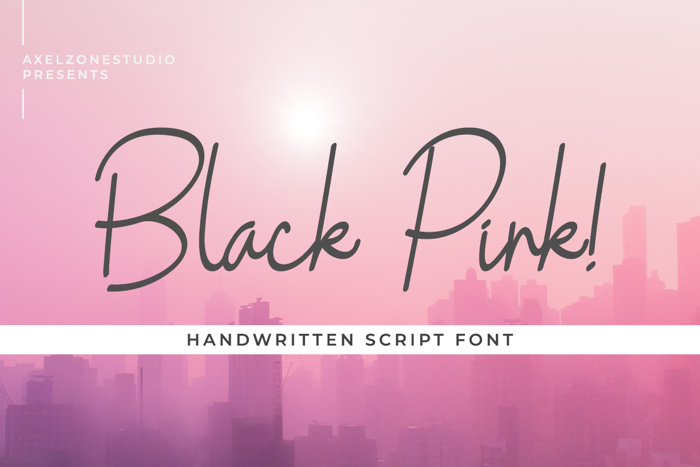
Black Pink Cursive Font
Cursive Style
Black Pink has philosophy of being bold and soft at the same time. Which means this font looks soft, sophisticated, elegant, and strog that could lift your project into amazing and fabulous.
Black Pink would perfect for photography, watermark, social media posts, advertisements, logos & branding, invitation, product designs, label, stationery, wedding designs, product packaging, special events or anything that need handwriting taste.